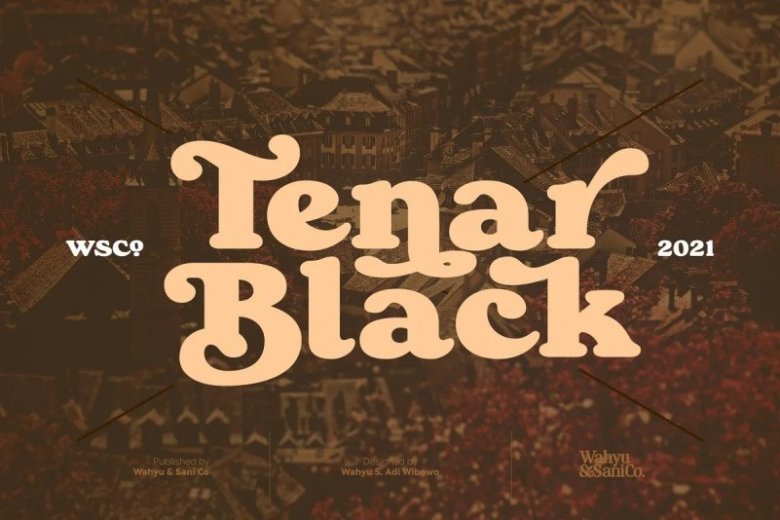
Tenar Black Font
Tenar Black Serif Font is eccentric, bold, bloating, retro display font with swash alternate and unique style. This font has 362 glyphs including alternates & ligatures and support 61 Latin languages. It is perfect for designs with classic themes, retro design, poster design and others.